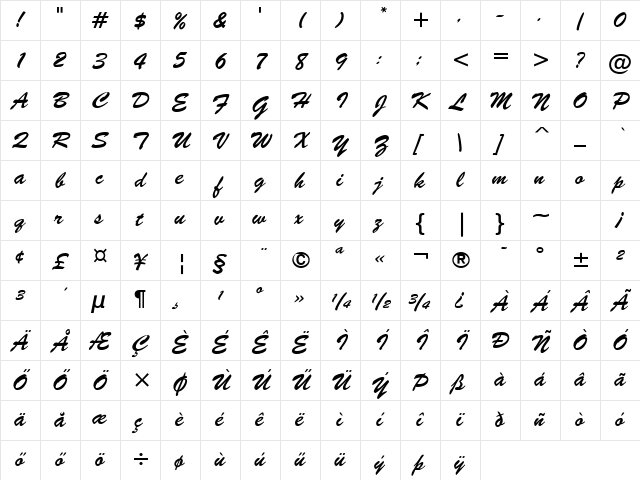
Brush-Script HU Normal
Complete Brush-Script HU Normal glyph index. Displaying only characters natively supported by Brush-Script HU Normal font.
Design Context for Brush-Script HU
Brush-Script HU flows with the natural rhythm of handwritten lettering, making it ideal for designs that call for warmth and personal expression.
Font Pairing: Combine Brush-Script HU with a simple geometric sans for maximum contrast - the tension between flowing curves and clean structure is a classic typographic pairing.
Pro Tip: Use Brush-Script HU for short runs of text - names, titles, or taglines. Extended body copy in script faces tires the eye quickly.